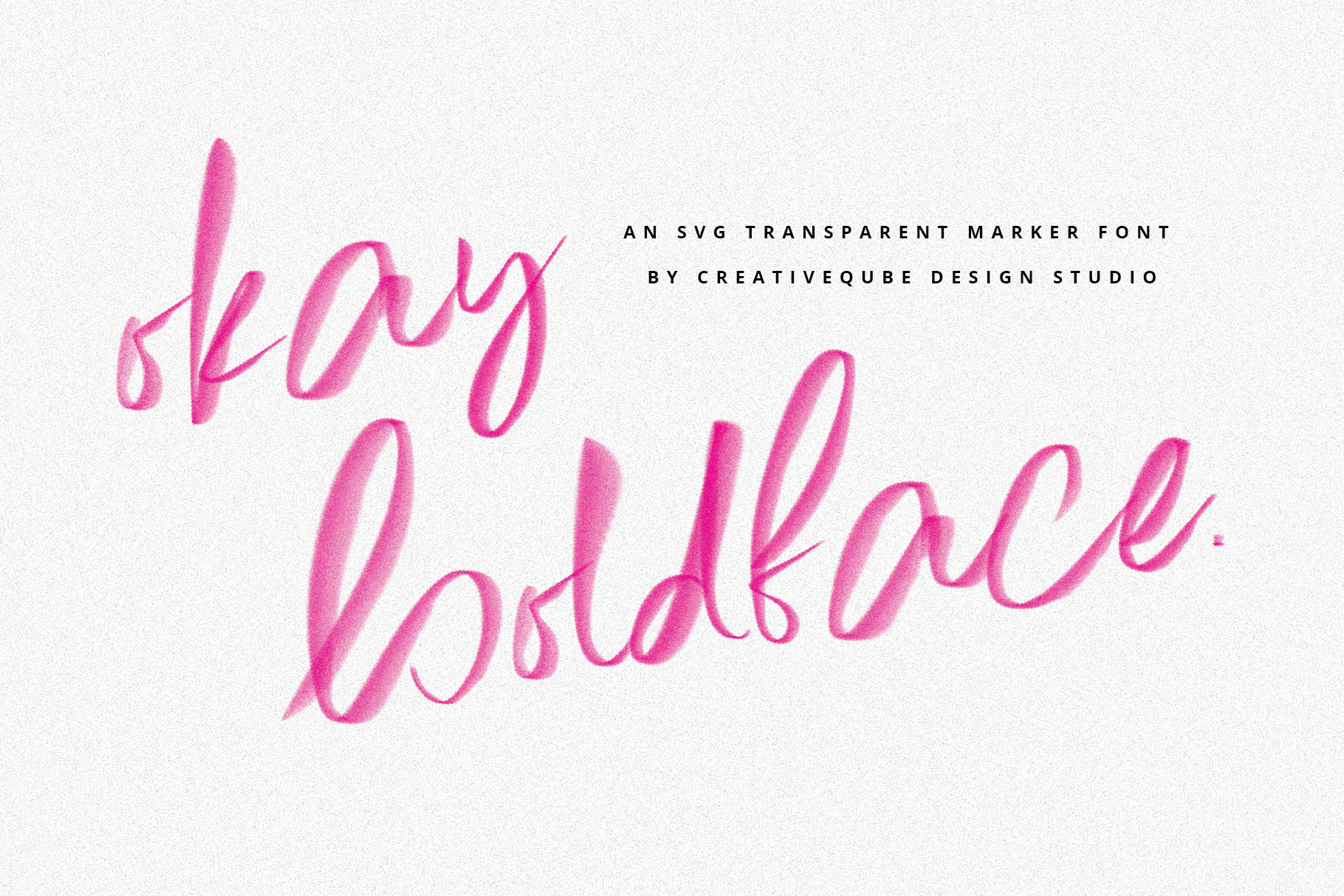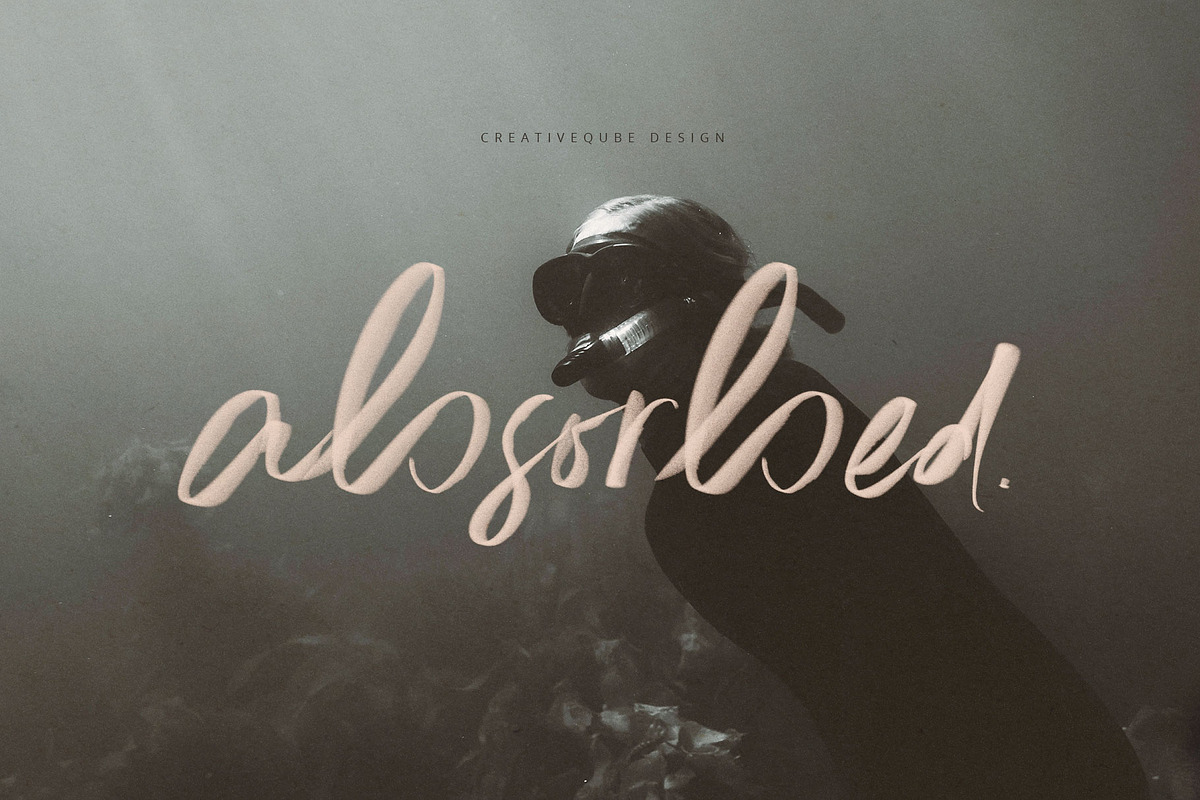
Okay Boldface SVG marker font
Introducing Okay Boldface, your go-to choice for an expressive and authentic handwritten SVG font with the bold charm of a brush marker. This versatile typeface adds a distinctive touch to your projects, whether you're designing posters, invitations, branding materials, or anything in between.
🖌️ Font Highlights:
Bold and Expressive: Okay Boldface captures the bold, energetic strokes of a brush marker, making your text stand out with confidence and flair.
Versatile Usage: This font is perfect for a wide range of design projects, from eye-catching headlines to attention-grabbing logos, social media graphics, and more.
SVG Format: Designed in SVG format, this font preserves the realistic brush texture, ensuring your text looks hand-drawn and authentic in any context.
Make a bold statement with Okay Boldface and let your designs speak with a touch of brush marker personality.